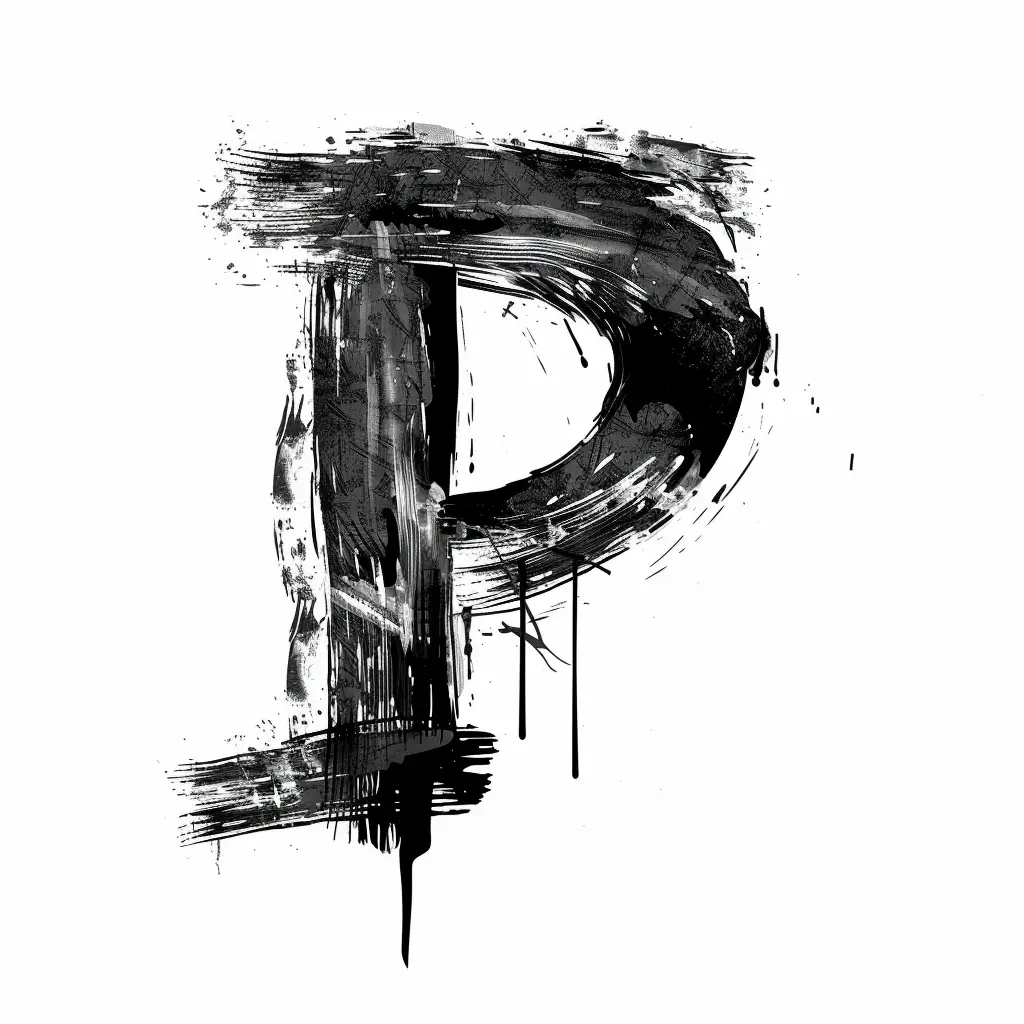
The image features a stylized, abstract letter "P" rendered in black and white. The design employs a rough, brushstroke technique with splatters, drips, and textured layers, creating a dynamic, artistic effect. The monochromatic palette emphasizes the bold, expressive style of the typographic artwork.